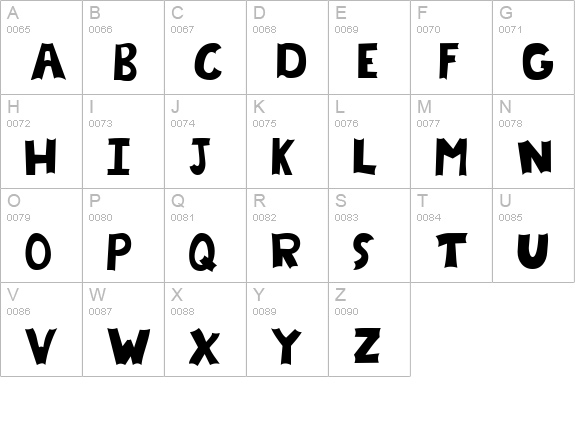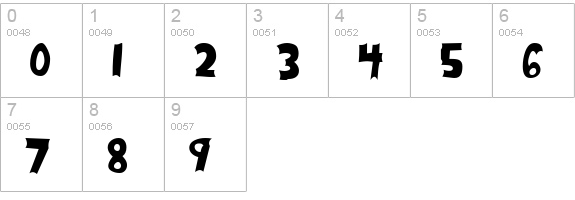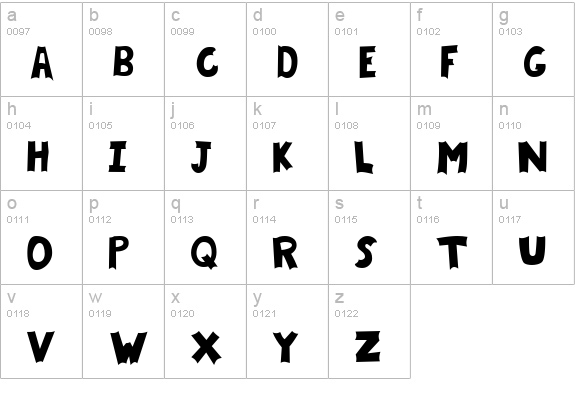
Chrysalis Filled Font Details
Chrysalis Filled font is a beautifully designed typeface that exudes elegance and sophistication. Its unique chrysalis-inspired design gives it a modern and stylish look that is perfect for a wide range of design projects. The smooth curves and intricate details of this font make it a standout choice for branding, packaging, and editorial design. The best part about Chrysalis Filled font is that it is completely free to download at FontsMarket.com. This means that you can add this stunning font to your collection without having to spend a penny. Whether you are a graphic designer, a blogger, or a business owner looking to enhance your brand identity, Chrysalis Filled font is a fantastic choice that won't break the bank. Download it today and unleash your creativity with this exquisite typeface.